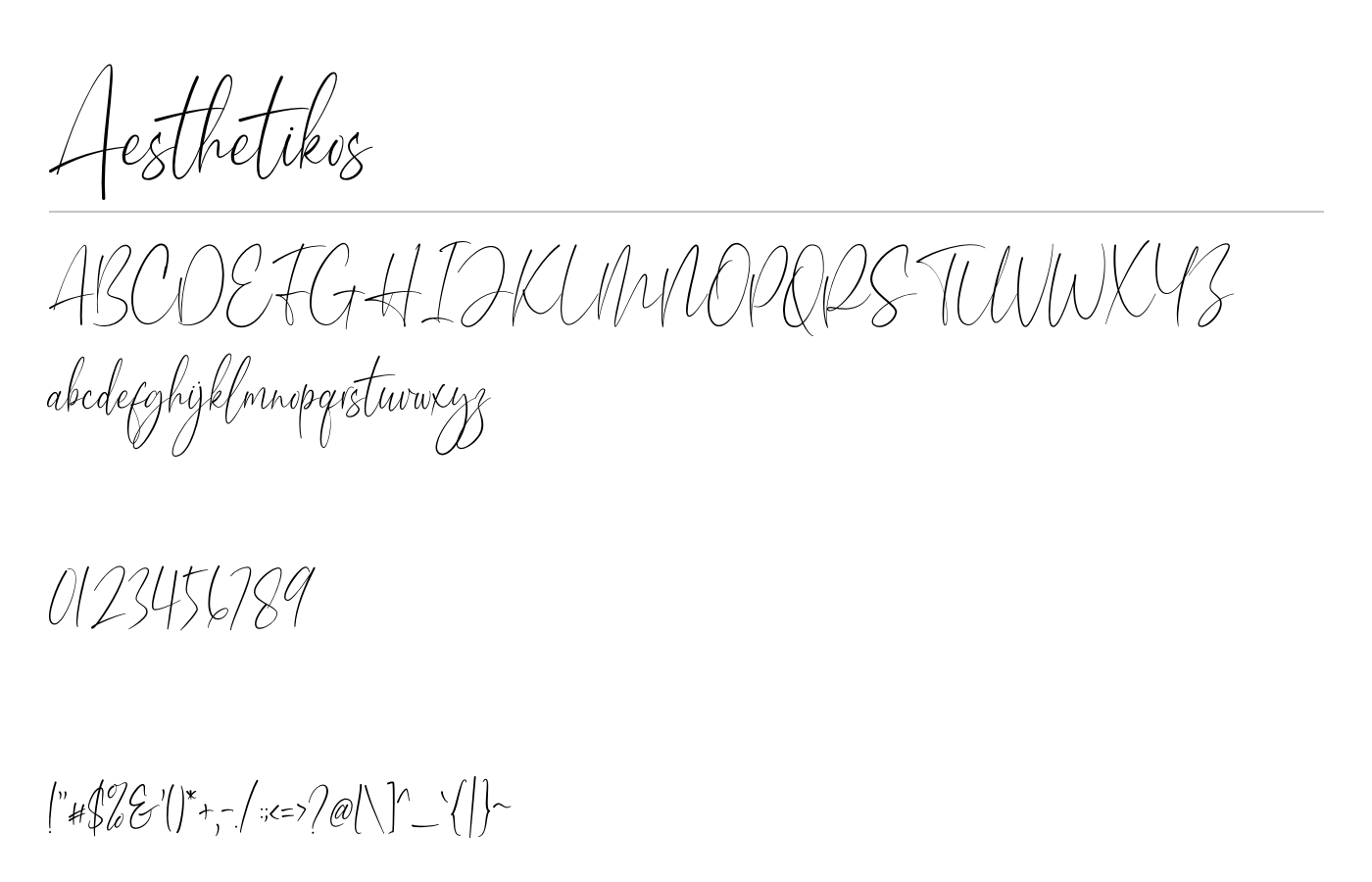
Aesthetikos is a delicate, modern script font with a light, airy feel created by its tall, slender letterforms and flowing strokes. Its elegant and handwritten style makes it perfect for creative branding, invitations, and fashion-related designs that seek a refined yet personal touch. This font works best in headlines or display text where a graceful and artistic impression is desired.
Aesthetikos Font
About Aesthetikos Font
| Font family | Aesthetikos Font |
| Designer | Abdul Azis - Azcreative Studio |